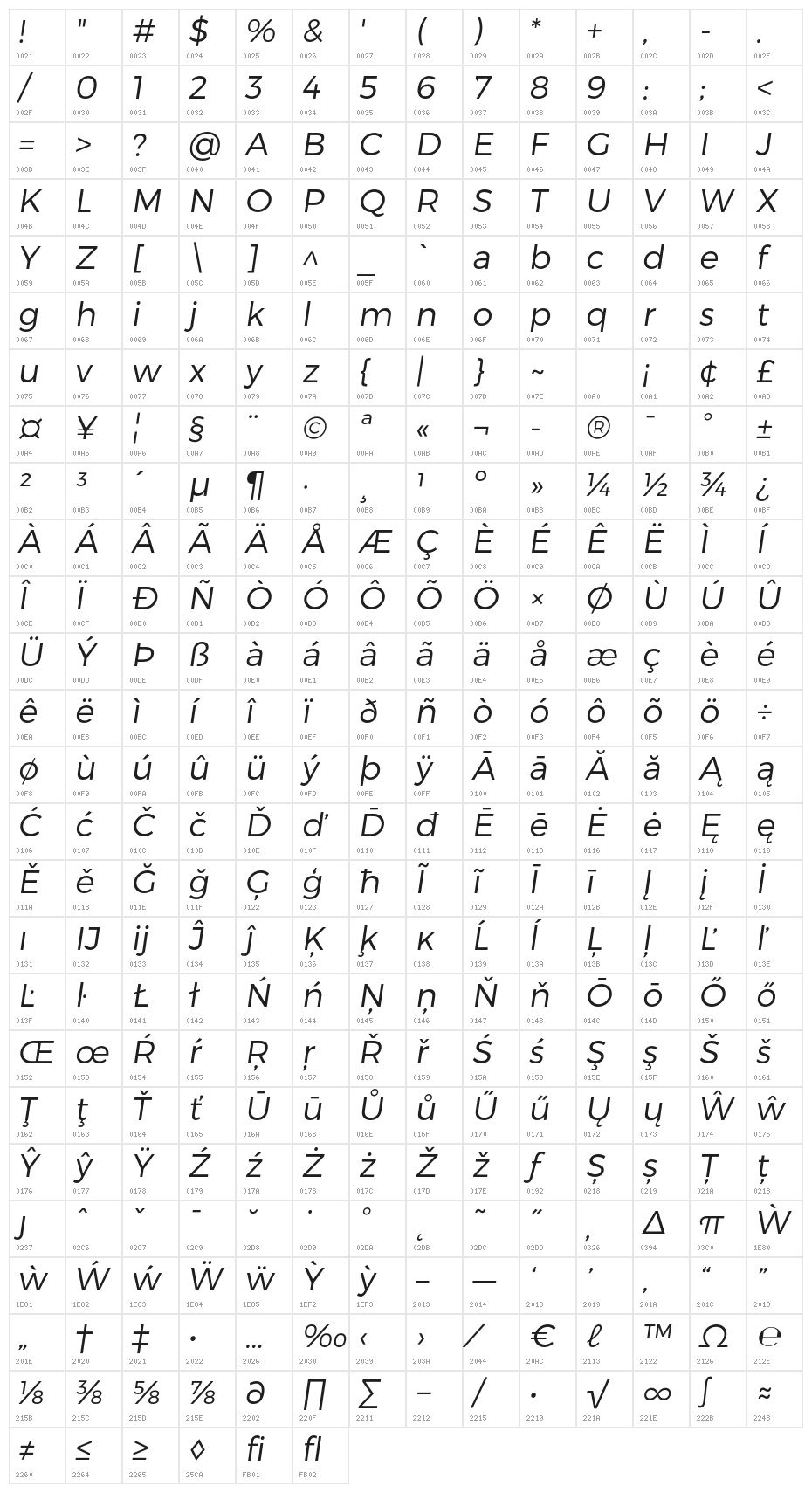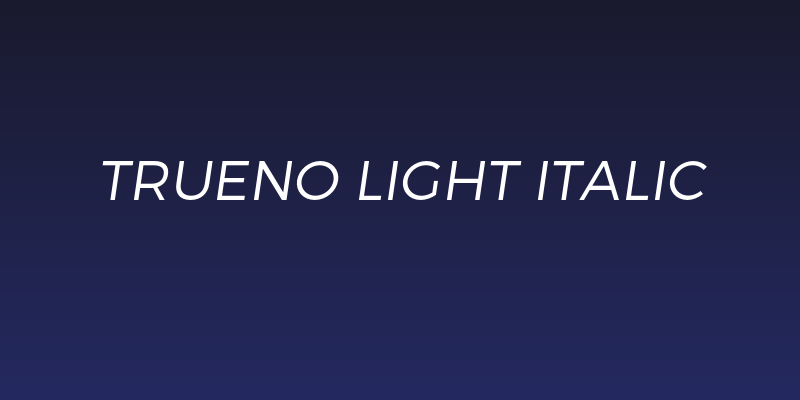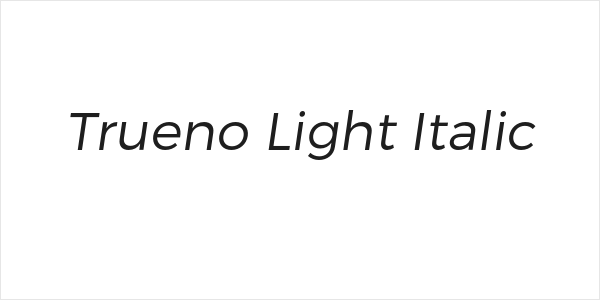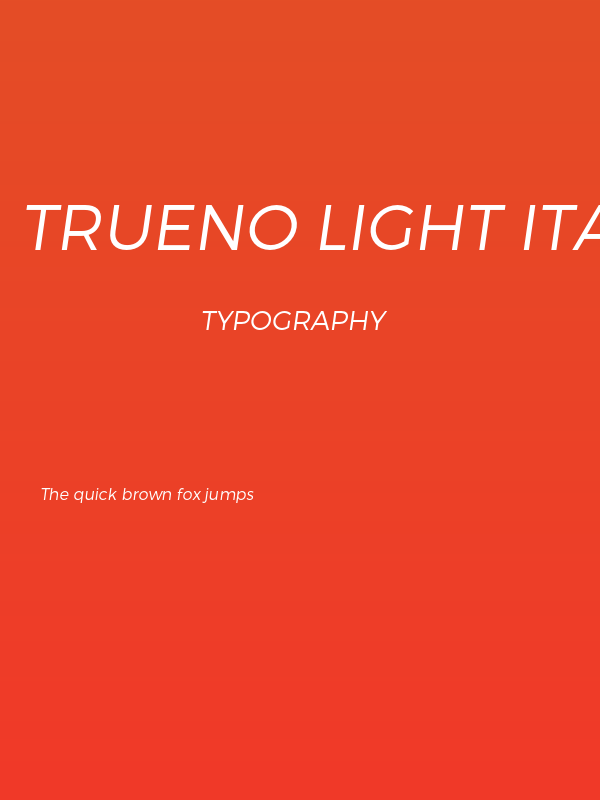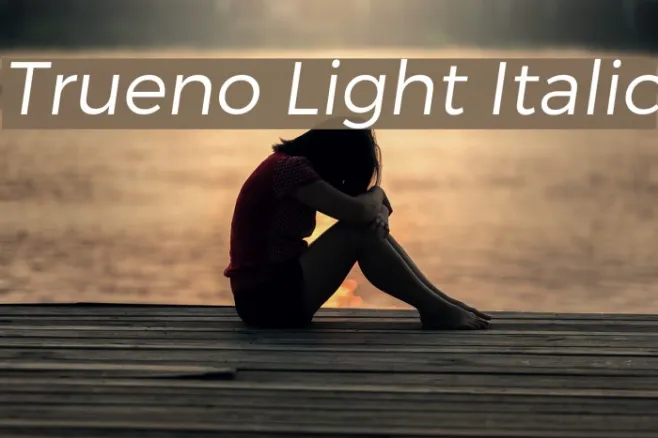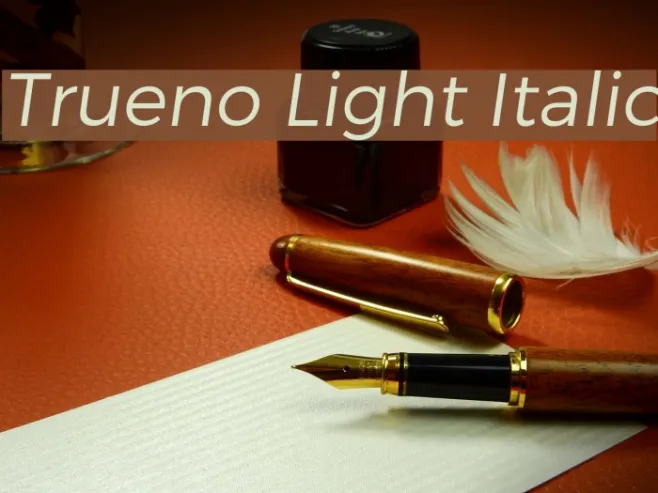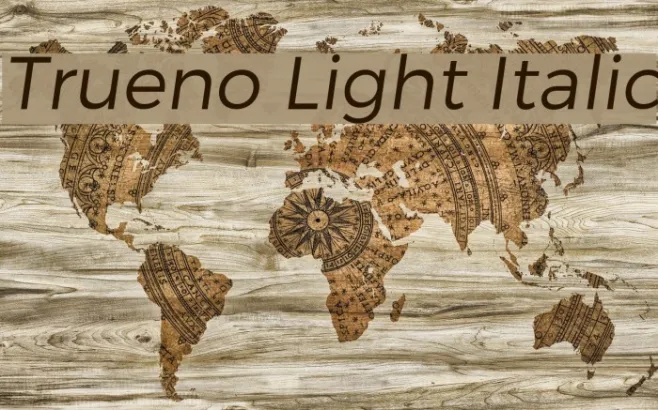
Trueno Light Italic Font
Trueno Light Italic Description
This font features a sleek and modern design with a light weight and italic style. The characters are slightly slanted, giving a sense of motion and elegance. The sans-serif structure ensures clarity and readability, making it suitable for various digital and print applications. The clean lines and minimalistic approach contribute to its contemporary feel, while the consistent stroke width maintains a uniform appearance across all characters.
| Proposed Projects | Ideal for use in modern branding, digital interfaces, minimalist posters, and elegant invitations. |